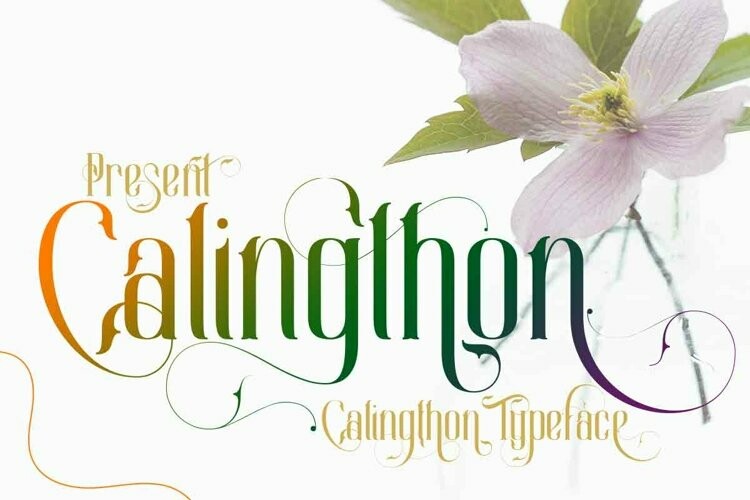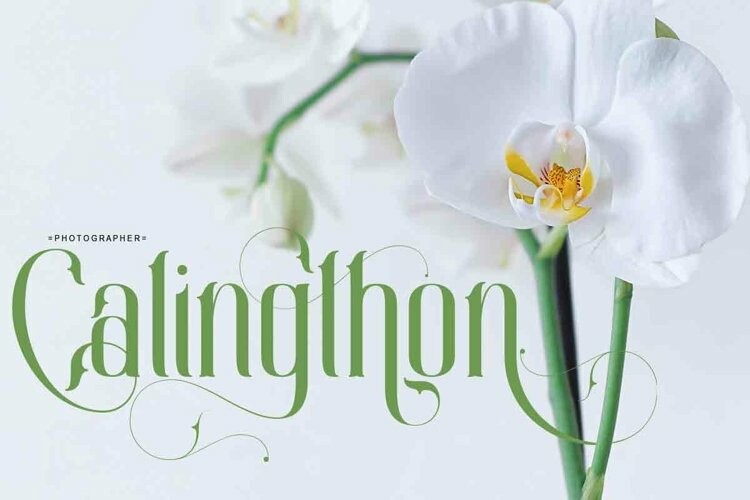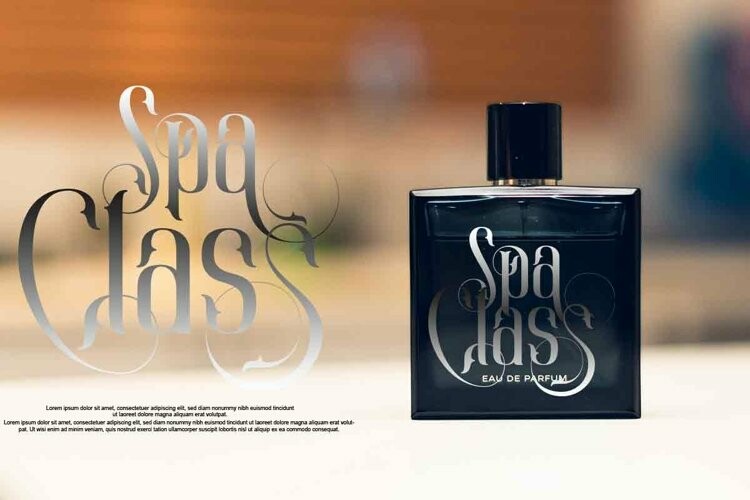
Calingthon Font
Calingthon Fontcalingthon is a very charming, upright and dashing calligraphy font, making this font elegant and modern in style, suitable for social media, displaying video thumbnails, book covers, banners and many more there are several alternatives that you can use, make sure